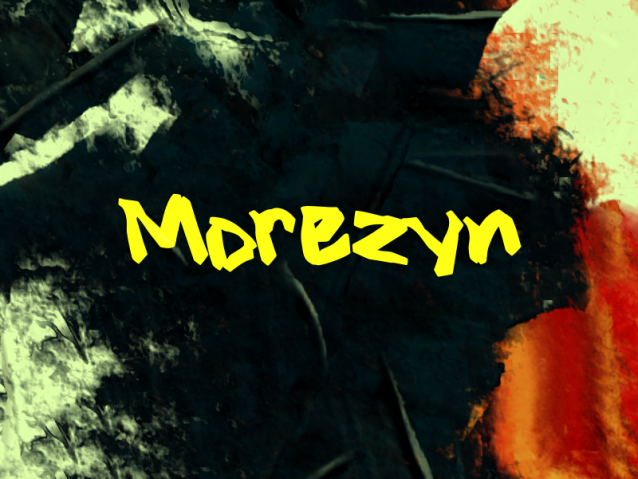
Morezyn Font
Morezyn Font is a simple and modern display font suitable for quotes, logos, headings, titles, and many more. Use it on any of your creative projects, and your designs will become outstanding!